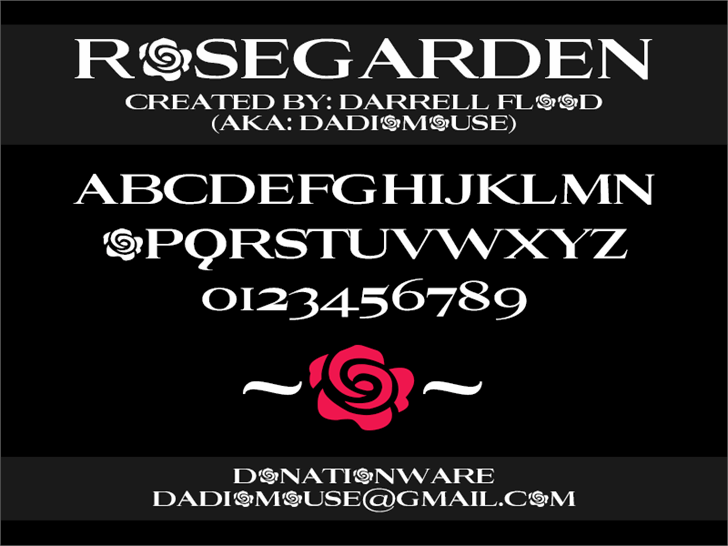
Free Rosegarden Font
Take a look at this mouth-watering free rosegarden font. Font Space has created this amazing and beautiful free font. Amaze your fellow designers and create stunning designs with this fancy font.